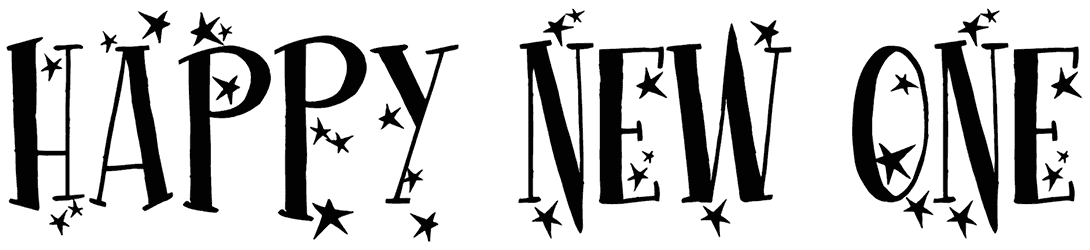
Happy New One Font
A cute and comical font, such as Happy New One, can be a nice option for a distinct design. This decorative font has an untidy letterform decorated with many stars.
This Christmas font includes caps, but you can only count on the letter P from the lowercase letters if you need it! Put Happy New One on your new projects such as backgrounds, posters, headers, or any others you are designing, and overjoy it.